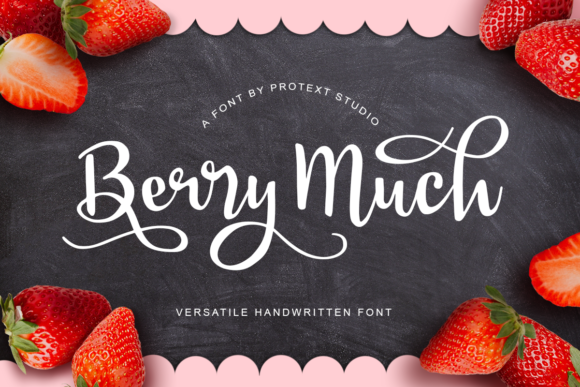
Embark on a typographic journey with Berry Much, a script font that exudes romance, playfulness, and captivating charm. Its graceful strokes, reminiscent of handwritten calligraphy, dance along the baseline, adding a touch of elegance and sophistication to your creative endeavors.
Unleash your artistic vision with Berry Much, the ultimate font for crafting enchanting designs that leave a lasting impression. With its PUA encoding, you'll have effortless access to a treasure trove of stunning glyphs and ligatures, empowering you to weave intricate and visually captivating text.
Picture your designs adorned with Berry Much's enchanting curves, evoking a sense of nostalgia and heartfelt connection. Its delicate flourishes lend an air of timeless beauty, making it the perfect choice for wedding invitations, heartfelt letters, and branding materials that demand an unforgettable presence.
Embrace Berry Much's versatility and let your creativity soar. Its ability to seamlessly blend with other fonts makes it a versatile companion for an array of projects, from heartfelt greeting cards to captivating social media posts. Create harmonious compositions that resonate with your audience and leave them spellbound.
Indulge in Berry Much's whimsical nature and let your imagination run wild. Its enchanting characters will breathe life into your digital creations, transforming them into captivating works of art. Whether you're designing logos, brochures, or eye-catching website layouts, Berry Much will elevate your projects to new heights of visual appeal.